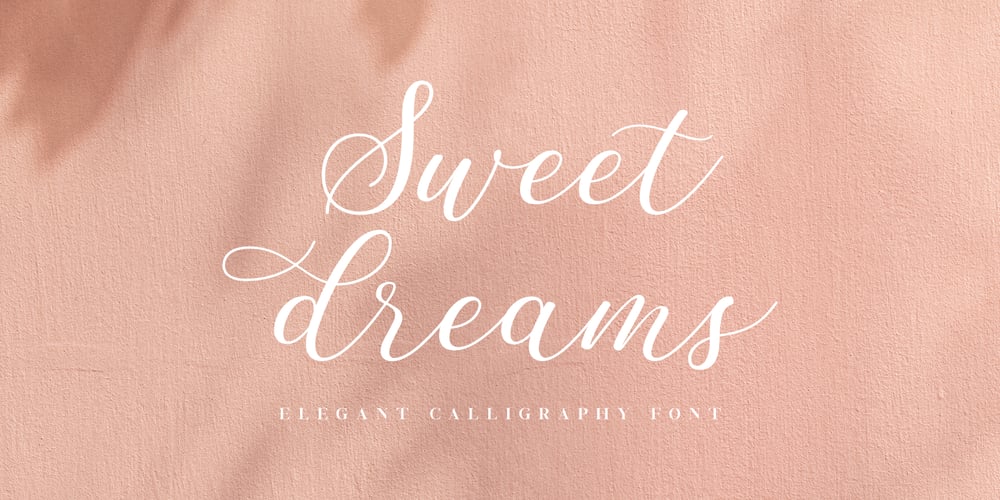
Sweet Dreams Font Family was designed by Diki Hermawan and published by Typestory. Sweet Dreams contains 1 styles and family package options. It looks beautiful on a variety of designs requiring a personalized style, such as wedding invitations, thank you cards, weddings, greeting cards, logos and so on.What’s Included : Web Font Ton of glyphs Ligature, Alternate & Swashes Works on PC & Mac Simple installations Accessible in the Adobe Illustrator, Adobe Photoshop, Adobe InDesign, even work on Microsoft Word. PUA Encoded Characters – Fully accessible without additional design software. Thank you for your purchase!That’s it !! Have fun using our font 🙂